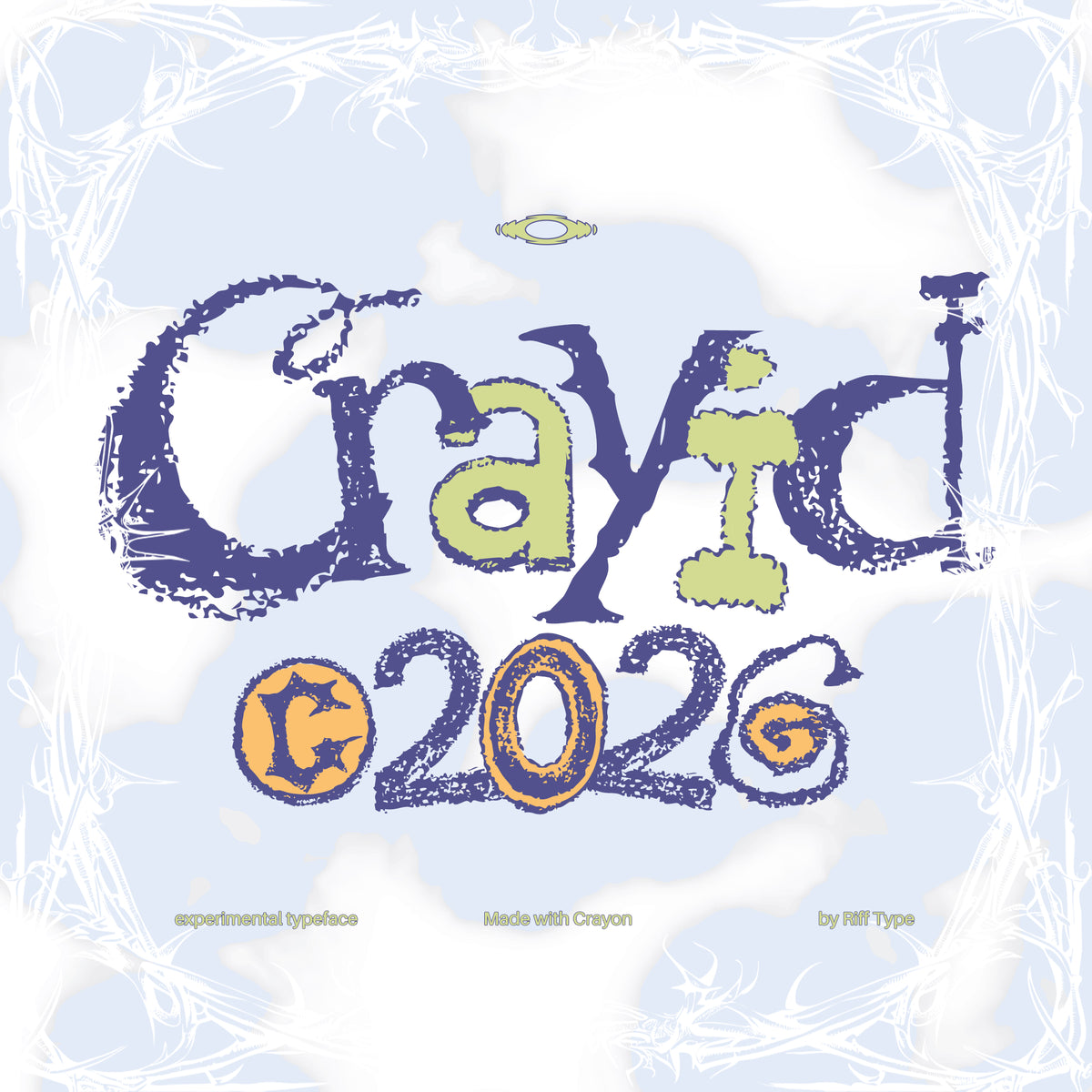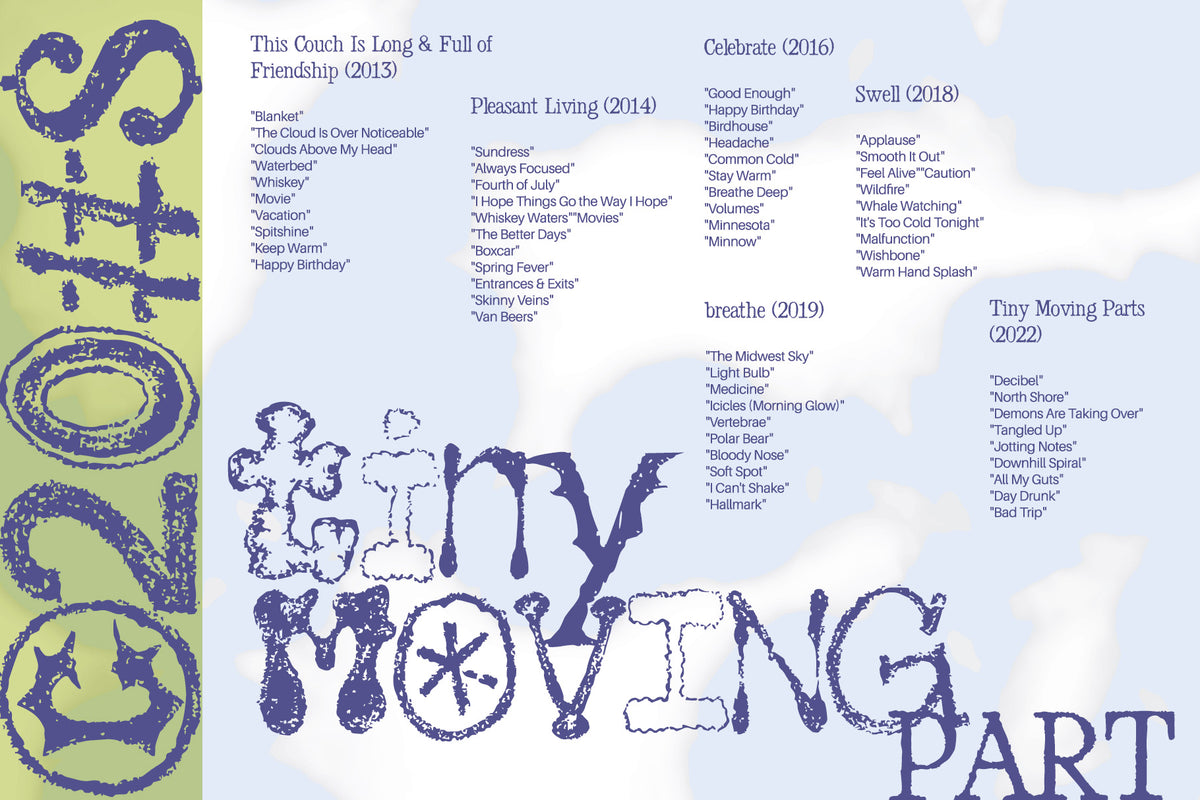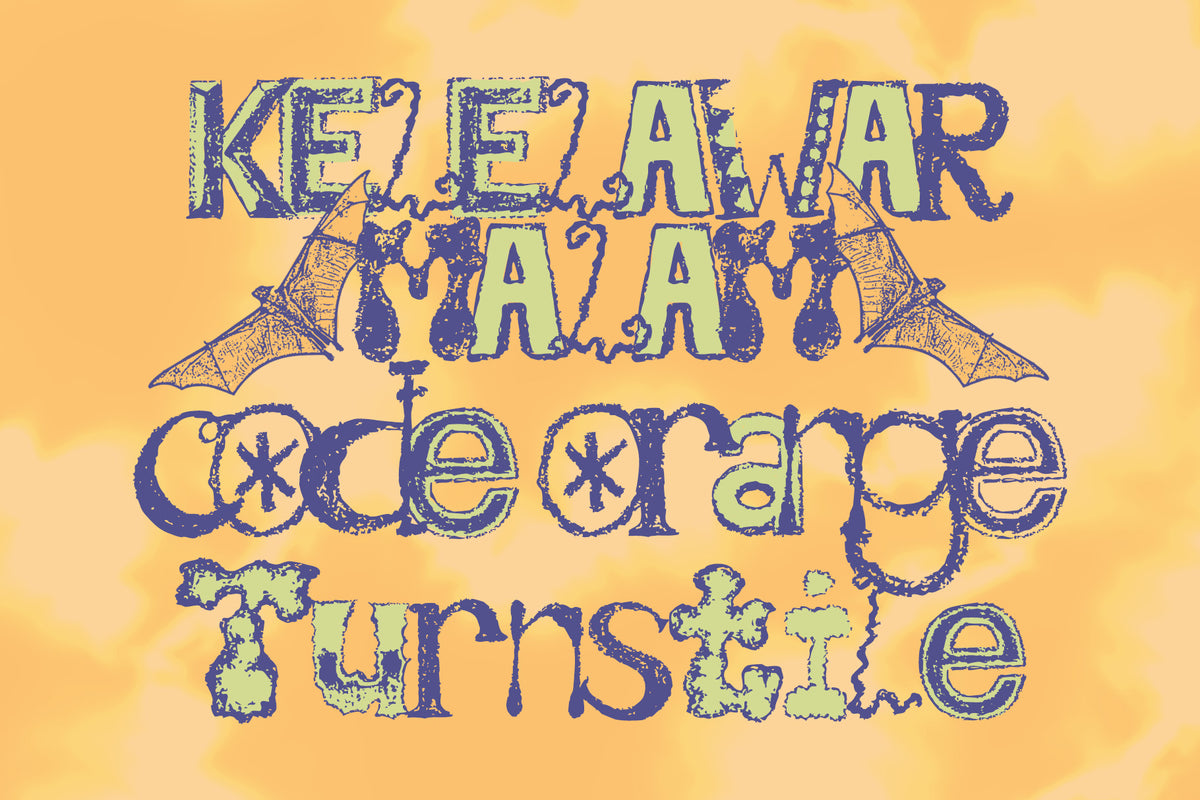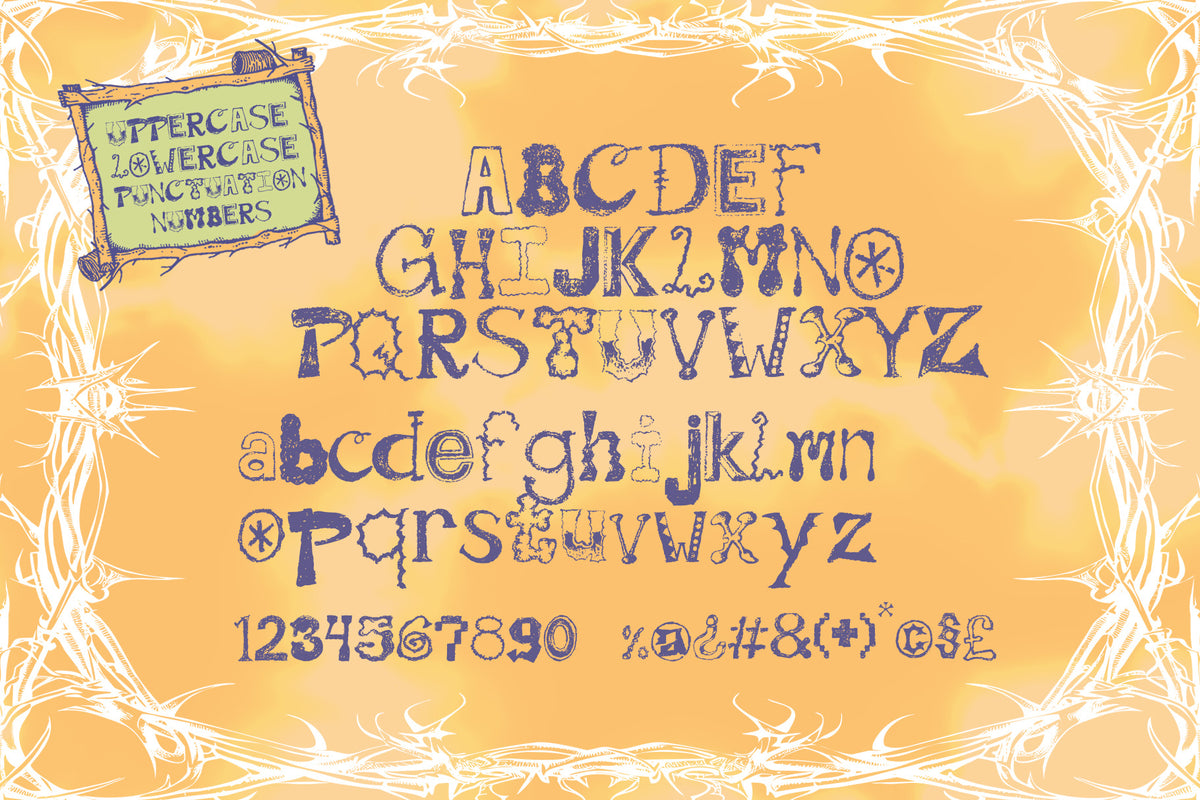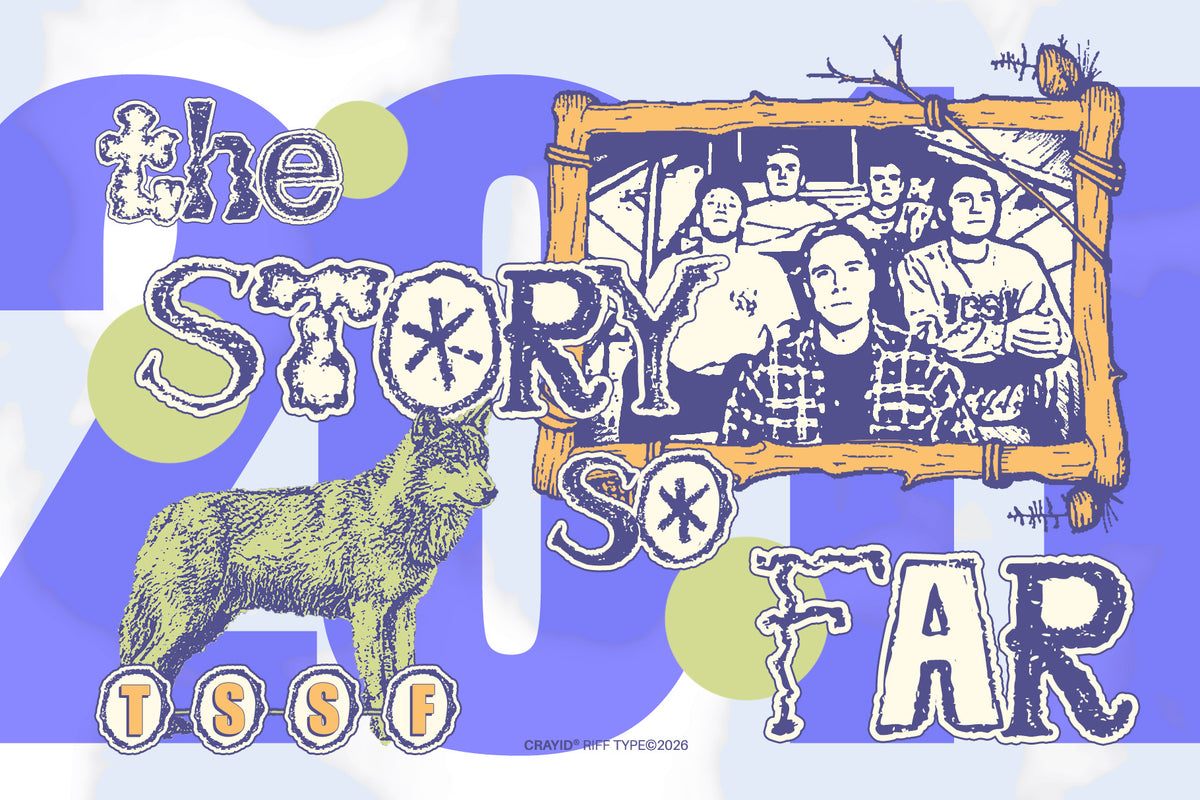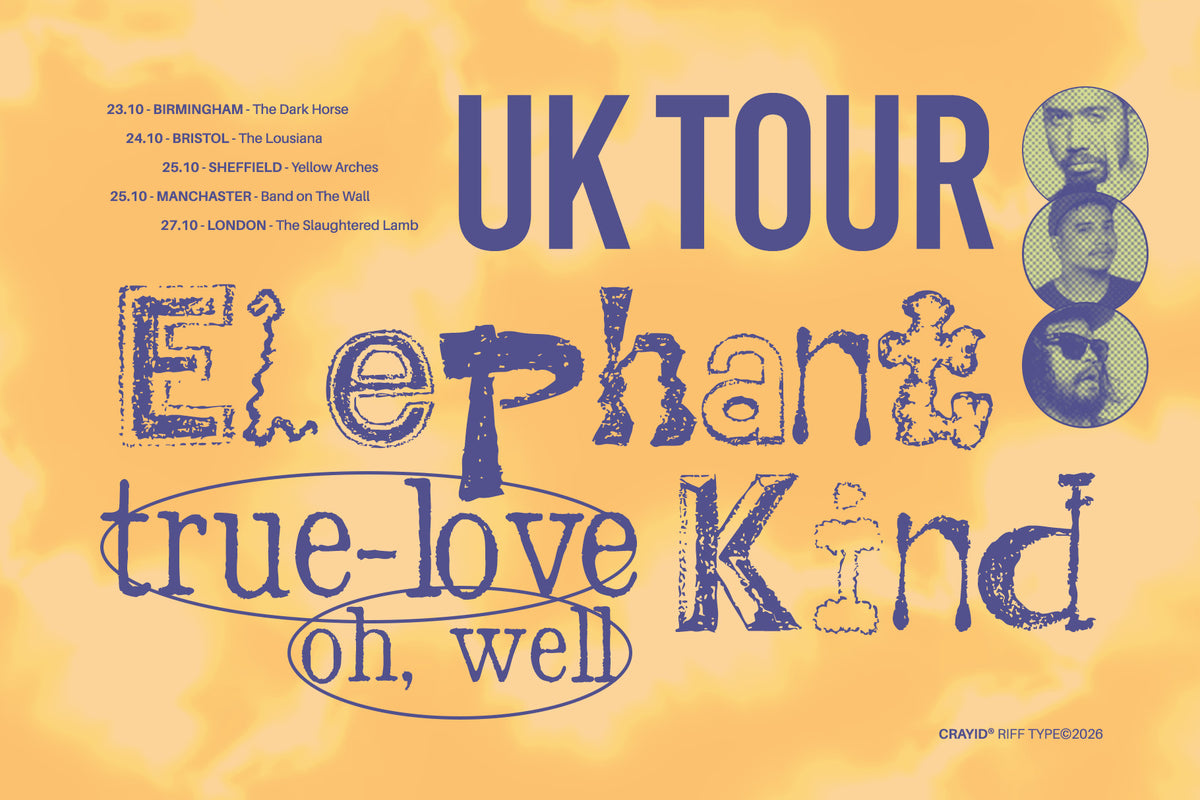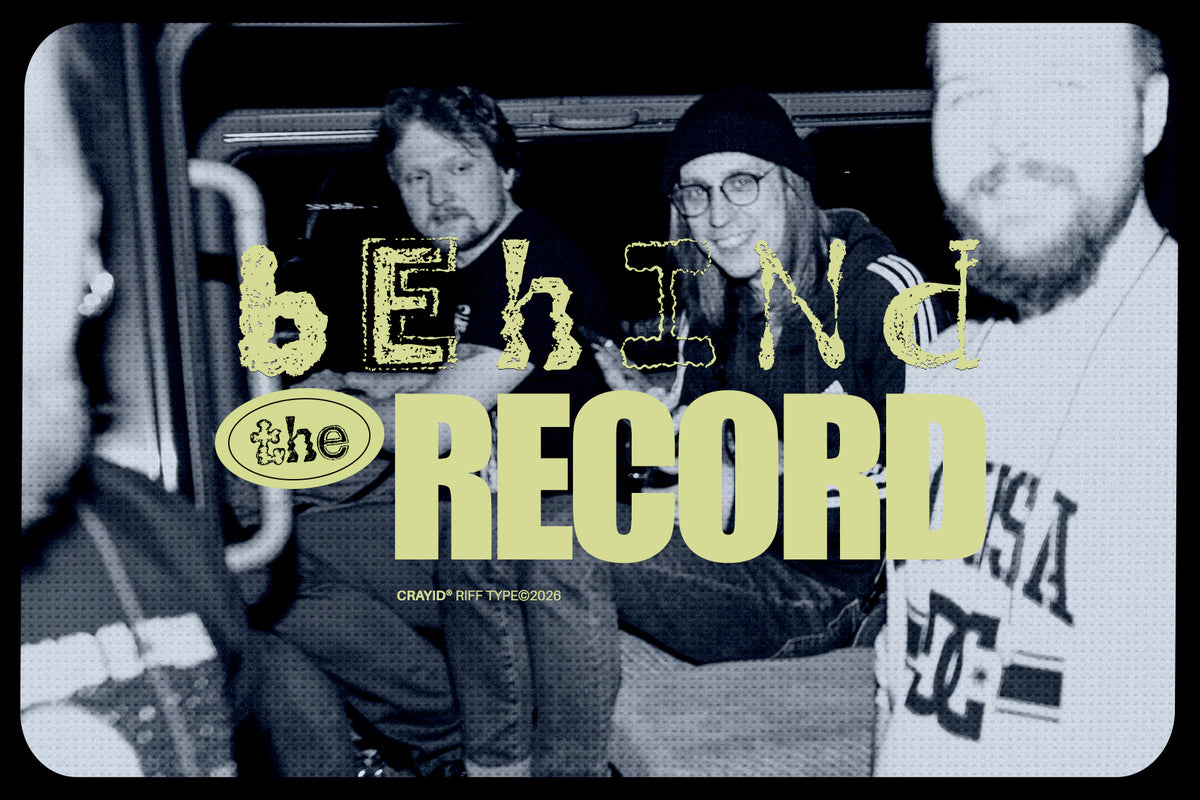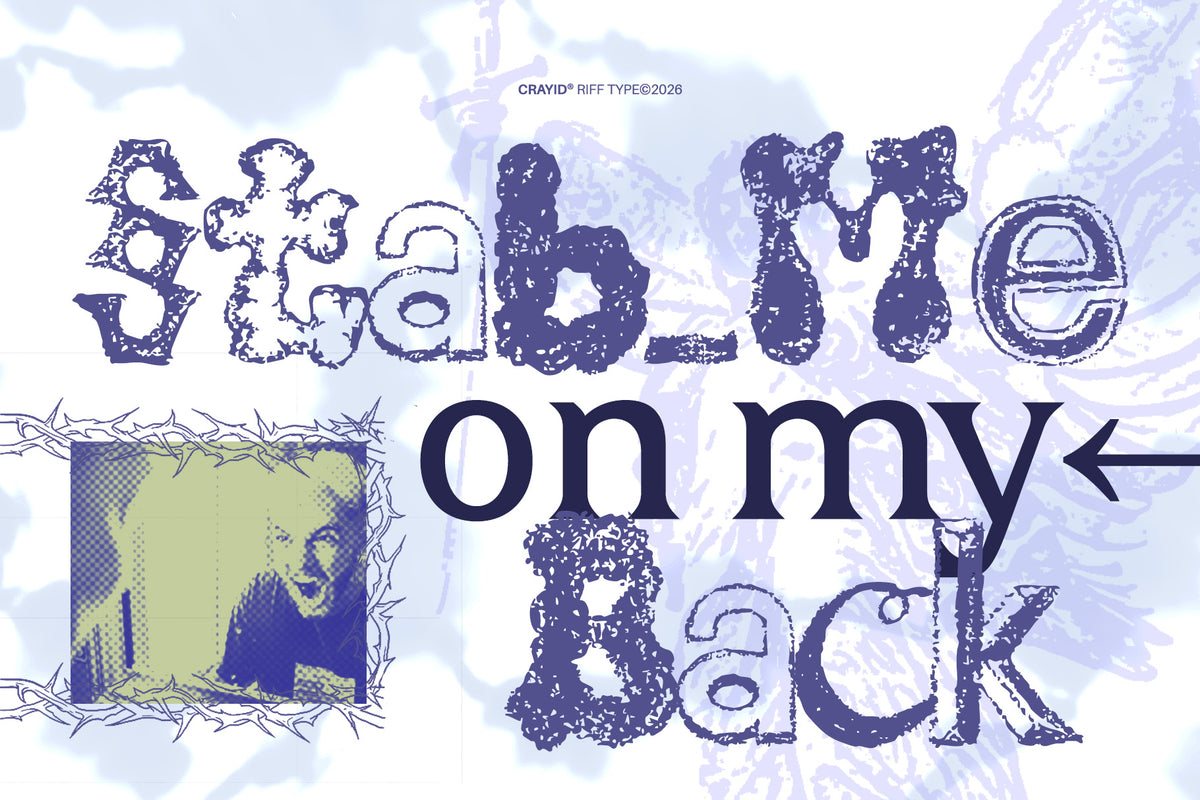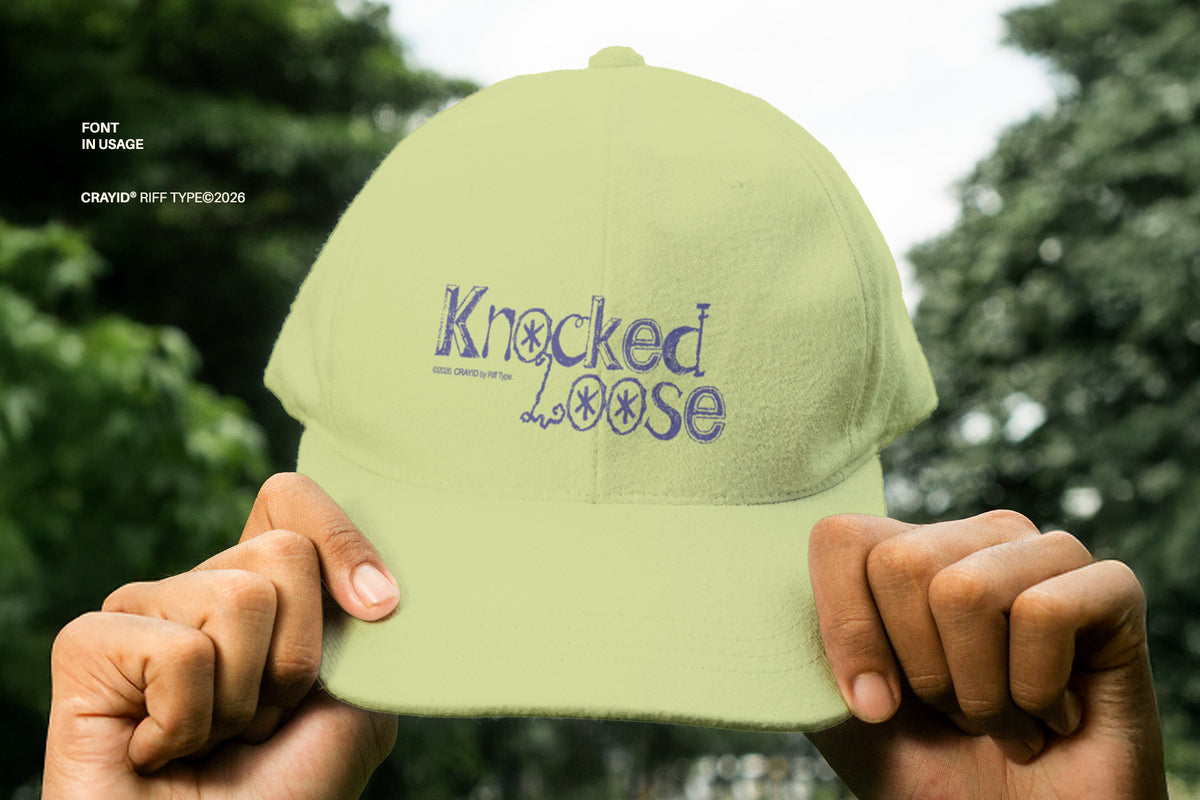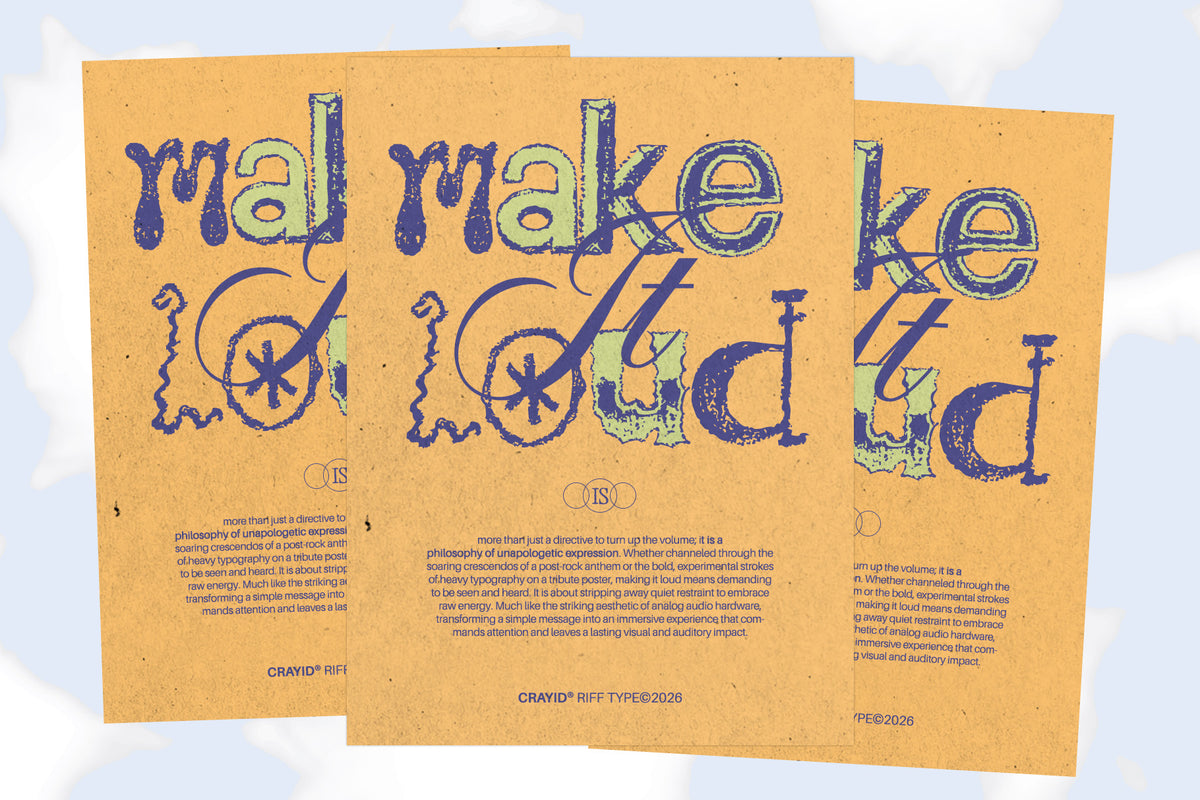
CRAYID - Crayon Typeface
Stop relying on clean digital vectors when your project demands authentic, physical friction. CRAYID is an experimental display typeface built entirely from heavy, raw crayon strokes. Capturing the unrefined texture of wax on rough paper, this font brings a dark, nostalgic 90s grunge edge to modern alternative designs.
• Uppercase & lowercase letters
• Numerals & punctuation
CRAYID is a display typeface featuring uppercase and lowercase letters, numerals, and punctuation, designed with heavy crayon-stroke textures. The ZIP file includes TTF, OTF, WOFF, and WOFF2 formats.